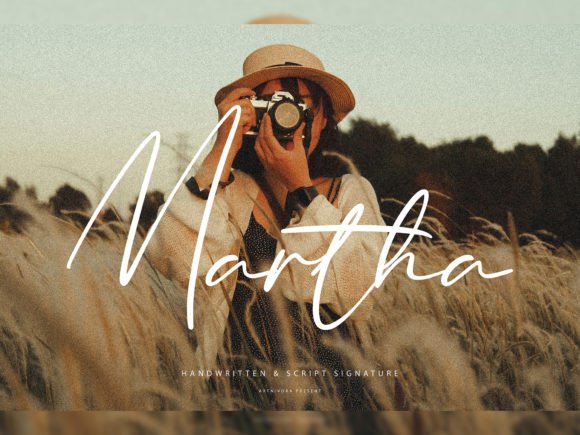
Step into an exquisite realm of artistry where elegance meets beauty. Meet Martha Font, the brainchild of artnivora.std, meticulously crafted to captivate your heart and inspire your creativity.
With Martha Font, the possibilities are endless. Whether you're a design virtuoso, a social media maestro, or a marketing marvel, Martha Font will effortlessly elevate your projects to new heights.
Visualize your logo designs adorned with Martha's delicate strokes, each letter a testament to the power of simplicity and charm. Craft magazine layouts that exude sophistication and timeless appeal, captivating readers with every page. Elevate your social media game with captivating posts and stories, ensuring your messages resonate with your audience. Design brochures that leave a lasting impression, showcasing your products and services with an air of refinement.
Martha Font is more than just a collection of glyphs; it's a journey into the world of refined typography. Experience the joy of crafting stunning letter C's, each one a work of art in its own right. Create captivating compositions where each character dances harmoniously with the next, forming words that whisper poetry and elegance.
With Martha Font, your creative vision will flourish. Unleash your imagination and embark on a journey of boundless creativity. Transform your designs into masterpieces, leaving an indelible mark on your audience's hearts and minds.
Martha Font is not just a font; it's an experience—a fusion of art and technology that will revolutionize the way you approach design. Dare to be different, embrace the beauty of simplicity, and let Martha Font ignite your creative spirit.